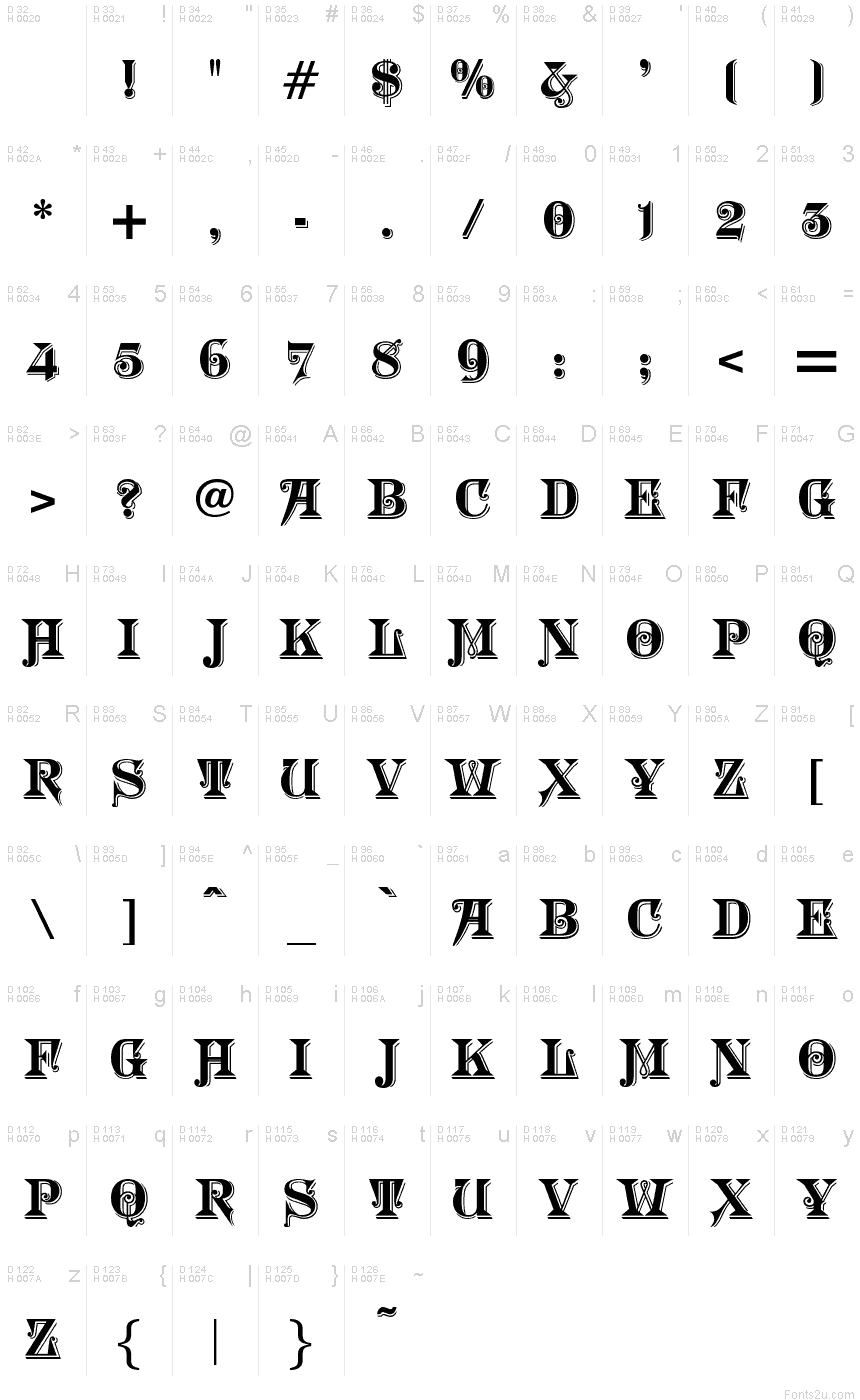
Morgan TwentyNine
Morgan TwentyNine font by FontShop is a free retro display font with tall serif letters, sharp flared ends, and carved inner lines that give it an old print-shop feel. The forms mix tight curves with pointed cuts, and a few letters carry small curls and hooks that keep the design ornate without becoming ornate in a floral way.
Morgan TwentyNine works well for posters, logotypes, vintage labels, packaging, title cards, and signage that needs a formal period touch. This free font brings enough decorative detail to frame a name or short phrase, while still leaving room for supporting artwork and textured layouts.